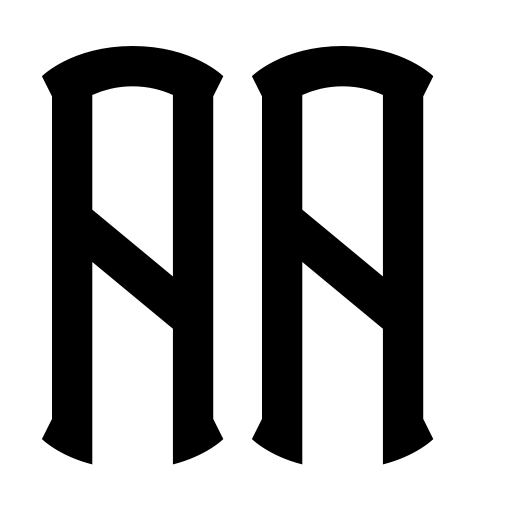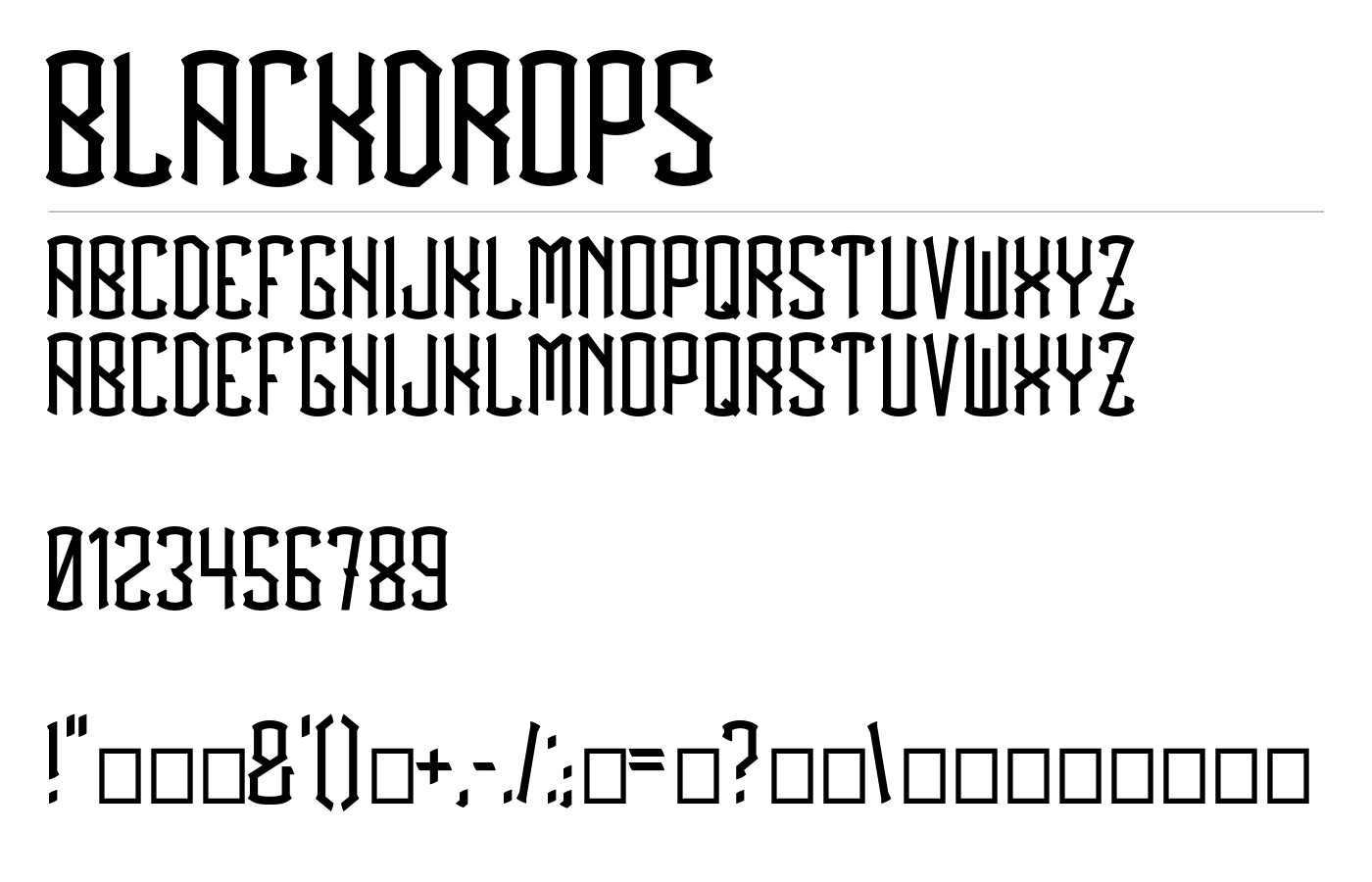
BlackDrops Font is a bold, condensed sans serif typeface with a striking, geometric design and sharp, angular edges that give it a modern, edgy character. Its high contrast stroke and tightly spaced letters make it perfect for impactful headlines, logos, and branding that seek a contemporary and powerful vibe. This font works best in settings where a strong, assertive presence is needed, such as fashion, music, or tech-related projects.
BlackDrops Font
About BlackDrops Font